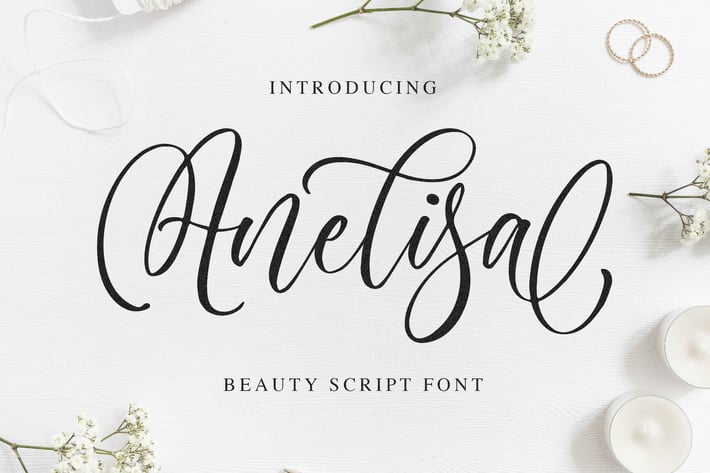
Anelisa Beauty Script Font
Introducing of our new product the name is Anelisa Beauty Script Font. Anelisa inspired by signature style this font is a fun theme very good for display, tshirt design, craft, quote sign, logotype and etc